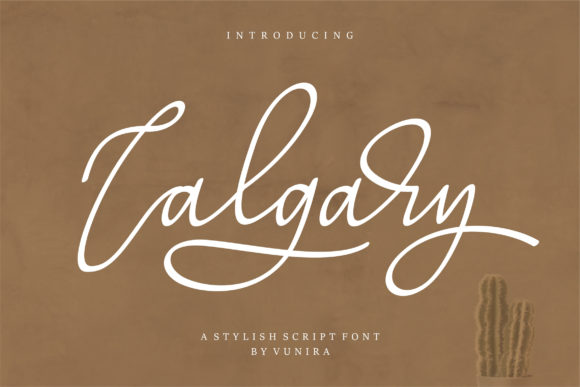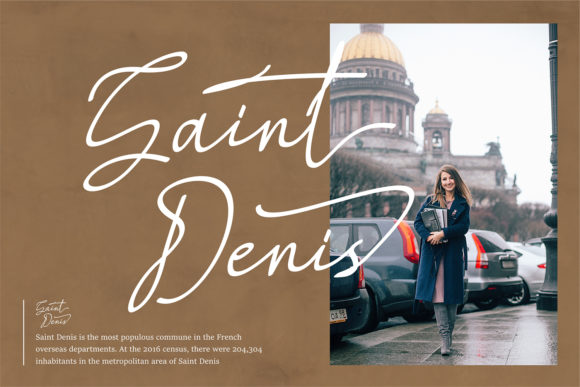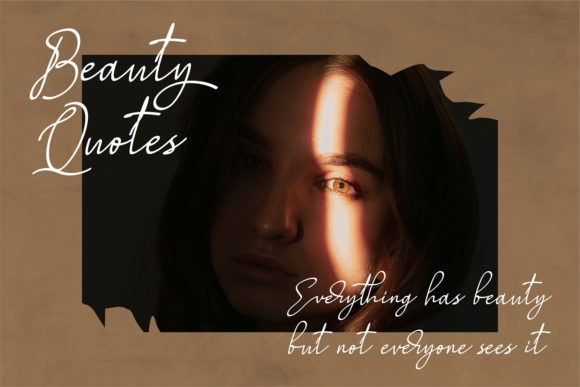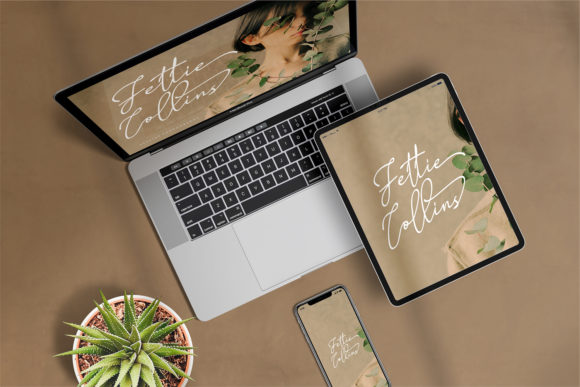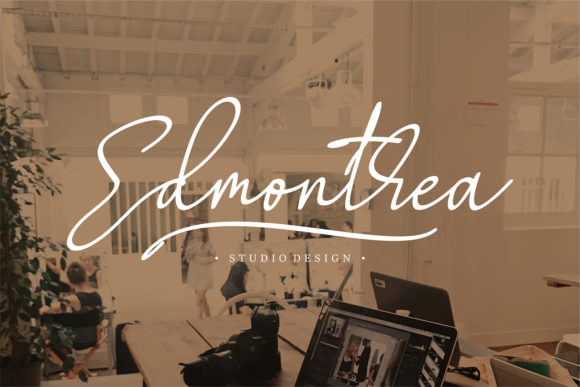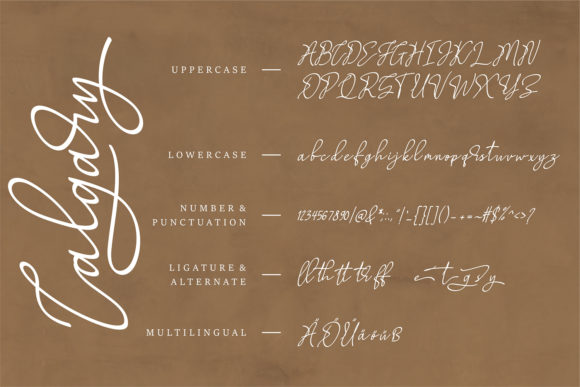
Calgary Font
About Calgary Font
“Calgary” is a graceful and flowing handwritten font that exudes elegance and sophistication. Its versatile style makes it a perfect choice for a wide range of design projects, adding a touch of refinement and charm to each creation. Here are some ideas on how to utilize the beauty of “Calgary” font to craft spectacular designs:
1. Wedding Invitations: Use “Calgary” font for wedding invitations, RSVP cards, and save-the-dates, creating a romantic and timeless appeal for the special occasion.
2. Branding for Boutique Businesses: Apply “Calgary” font in branding and packaging for boutique businesses, conveying a sense of elegance and sophistication to the brand.
3. Feminine Blog Headers: Incorporate “Calgary” font in the blog headers, titles, and graphics for a feminine blog, adding an elegant touch to the content.
4. Artistic Prints: Use the font for inspirational quotes and art prints, bringing an elegant and artistic touch to home decor.
5. Luxury Fashion Logos: Create logos for high-end fashion brands, using “Calgary” font to give a sense of refinement and sophistication to the brand identity.
6. Formal Event Programs: Design event programs for formal occasions like galas, charity dinners, or award ceremonies, using the font to set the tone for the elegant affair.
7. Magazine Covers: Apply “Calgary” font for magazine covers, attracting readers with its distinct and timeless style.
8. Stationery Sets: Design stationery sets with “Calgary” font for personalized notes, adding a touch of elegance to personal correspondence.
9. Artistic Quotes for Social Media: Create aesthetically pleasing graphics featuring quotes or motivational phrases, using “Calgary” font to enhance the visual appeal.
10. Book Covers for Romance Novels: Use the font for romance novel book covers, evoking a sense of romance and sophistication for readers.
11. Elegant Packaging Labels: Apply “Calgary” font for product labels and packaging of luxury products, elevating the visual presentation.
12. Signature Watermarks for Photographers: Use the font as a personalized signature watermark for professional photographers, adding a touch of elegance to their portfolio.
With “Calgary” font’s flowing and elegant nature, it can effortlessly elevate various design projects to create stunning and refined results. Its timeless style and distinct charm will make it a favorite choice for any creative endeavor you wish to undertake.